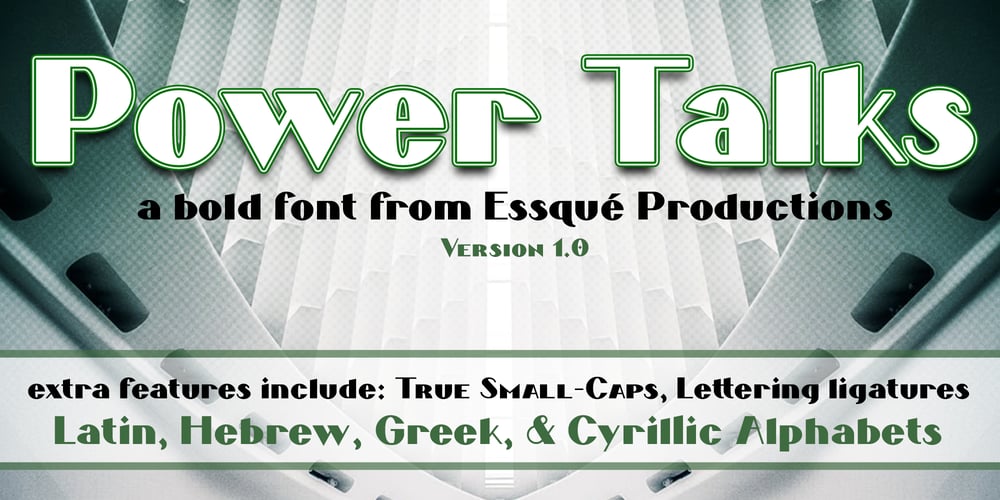
Power Talks
Power Talks font
Power Talks Font Family was designed by Stephen M Knouse and published by Essqué Productions. Power Talks contains 1 styles and family package options. Inspired by fonts used in financial and law arenas. Bold style reminiscent of 1920s deco era. Great font for play cash or Monopoly-themed party invitations. Vibes of Wall Street movers and shakers.Includes letters from Latin, Greek, Hebrew, and Cyrillic Alphabets – with some common diacritics. Also includes small caps and English feature words like “the”, “of”, “with”, “and”, etc. for marquee style accents.